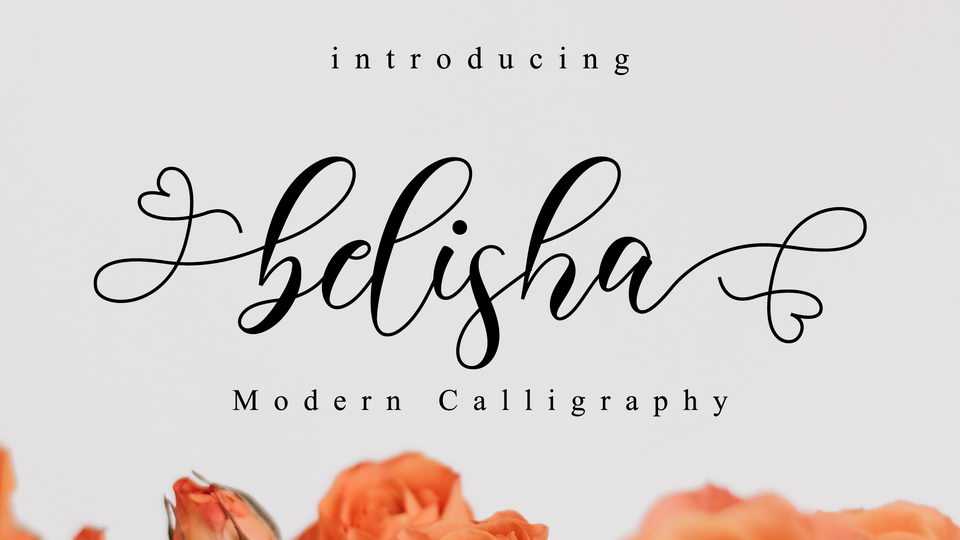
Download Belisha font, a lovely script with a classy, elegant and modern look and romantic feel. Belisha font can be used for logos, branding, invitations, stationary, wedding designs, social media posts, and every other design which needs a handwritten touch.
Designer: Nissa Studio